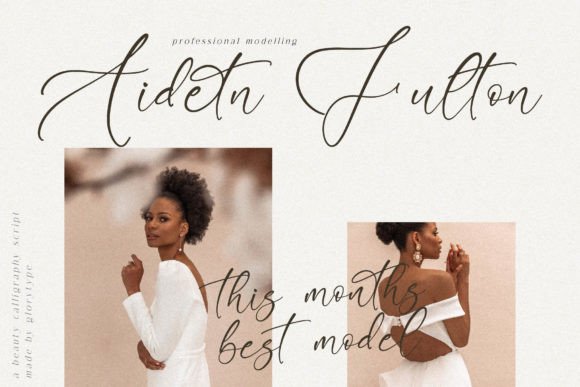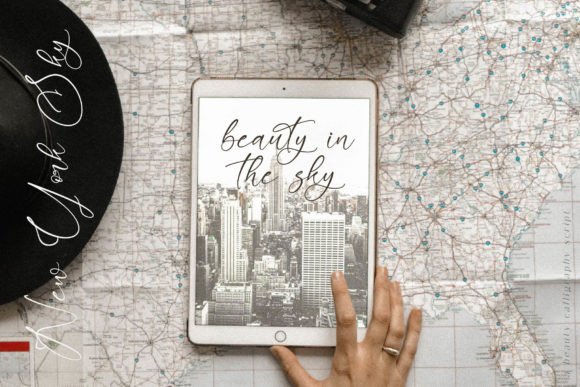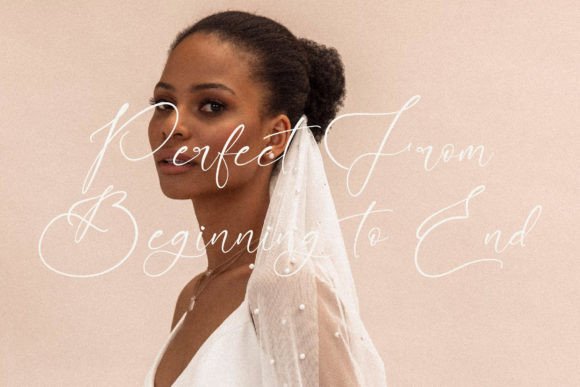
Introduction to Aloruty Fortune Font
Aloruty Fortune is an enchanting handwritten font.
This versatile script font has a wide spectrum of applications ranging from greeting cards to headlines and is guaranteed to add a romantic feel to your next project .